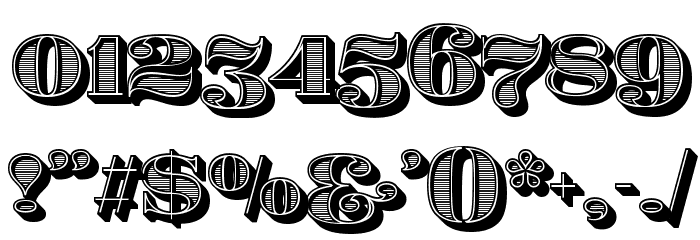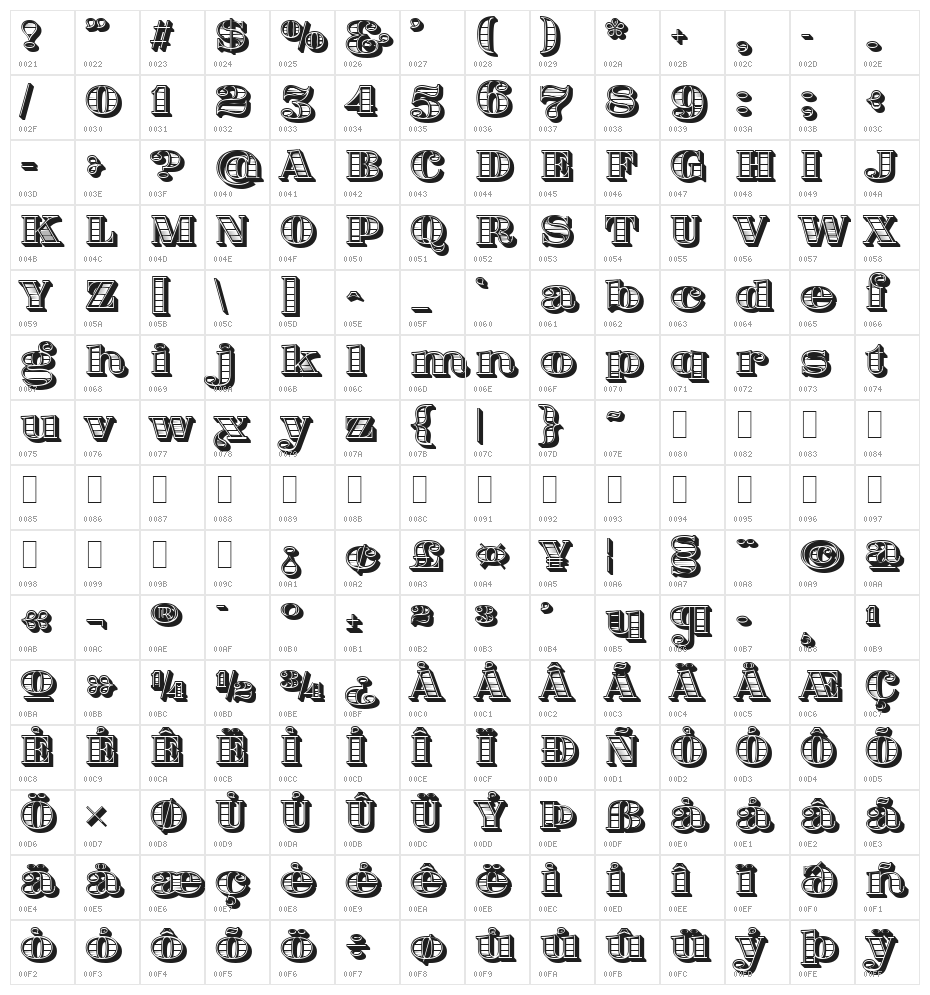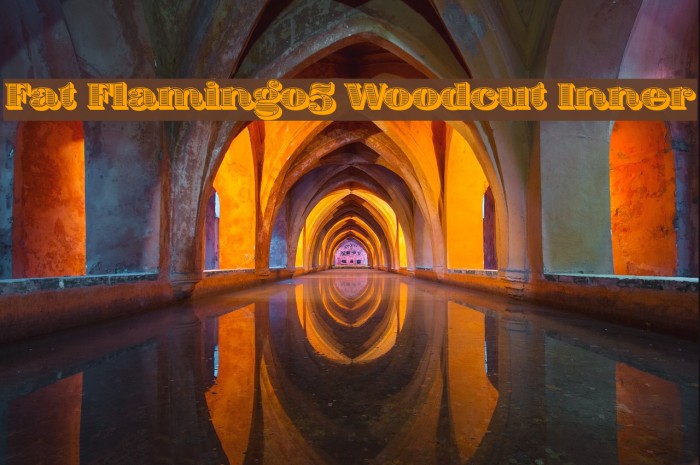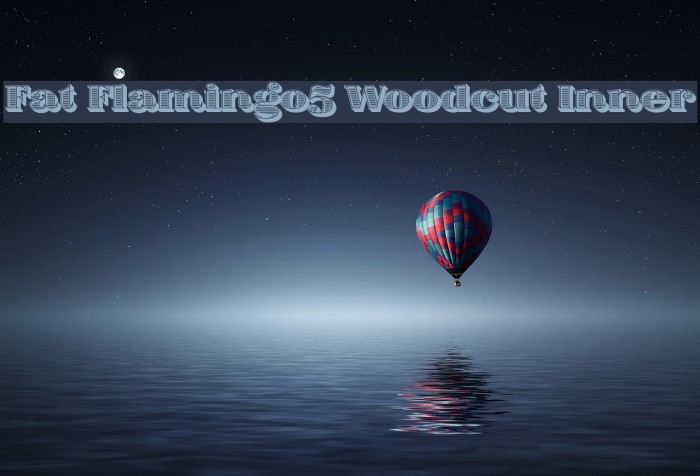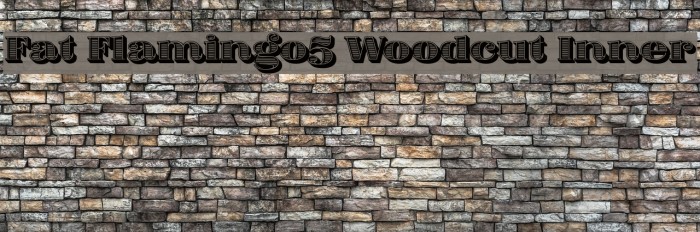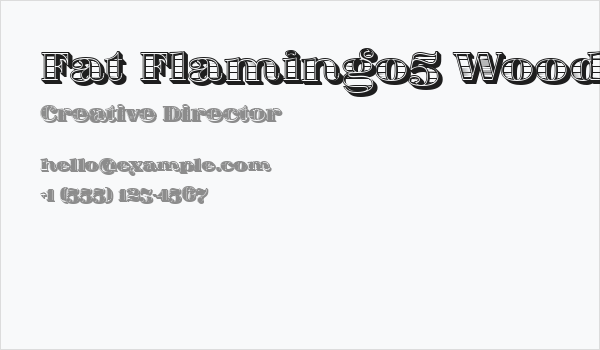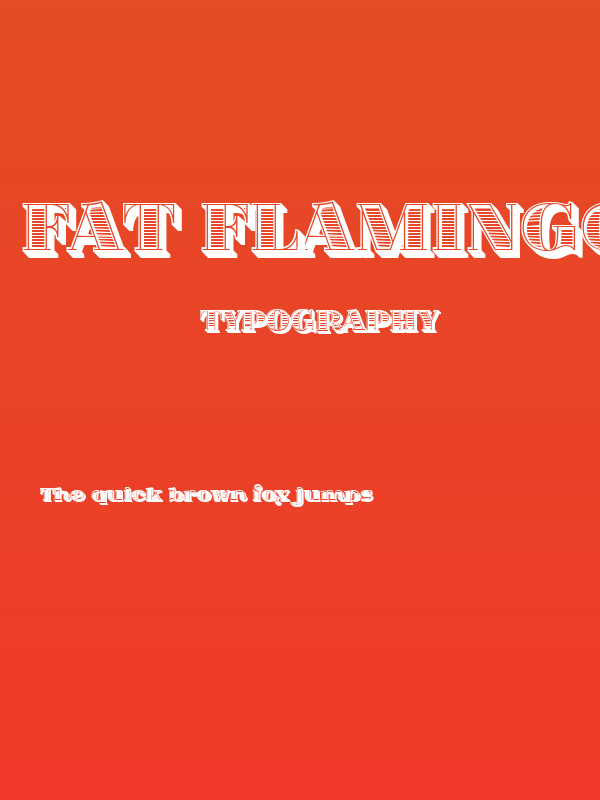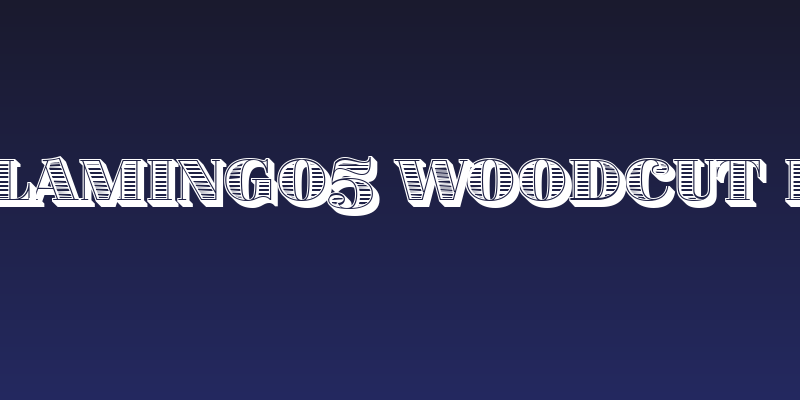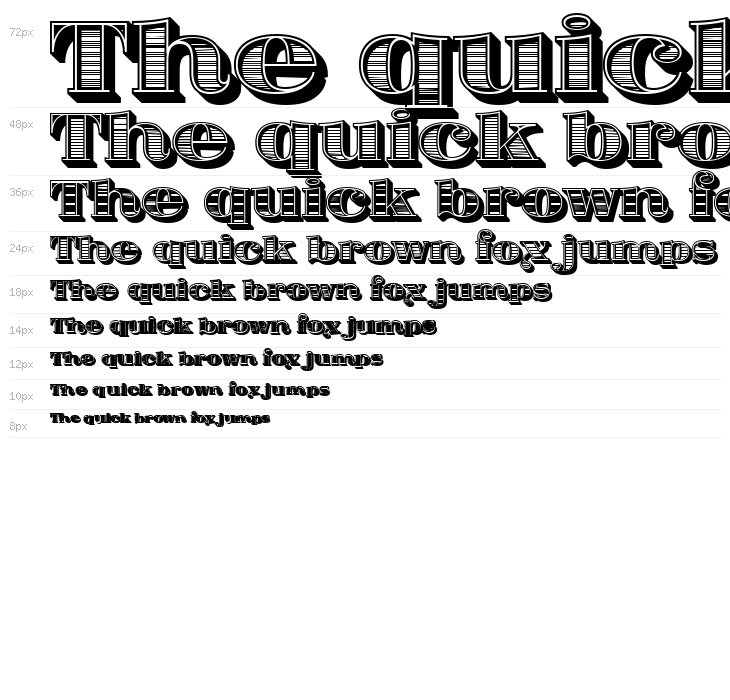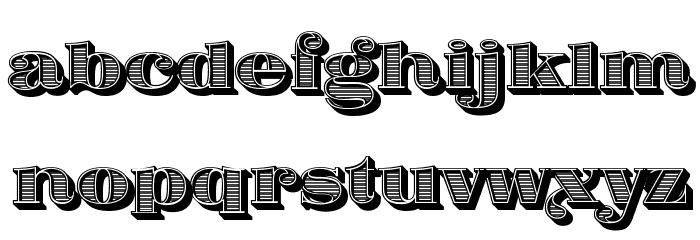
Fat Flamingo5 Woodcut Inner Font
Fat Flamingo5 Woodcut Inner Description
This font features a bold and striking design with a woodcut-inspired aesthetic. The characters are heavily stylized with thick, shadowed outlines that create a three-dimensional effect. The inner lines of each letter are intricately detailed, adding texture and depth. This decorative style is reminiscent of vintage poster fonts, making it highly suitable for attention-grabbing headlines and artistic projects. The uppercase and lowercase letters maintain a consistent style, with numerals and special characters following the same intricate design. The overall appearance is both bold and playful, making it ideal for creative and dynamic uses.
| Proposed Projects | Ideal for vintage posters, artistic headlines, branding, and creative design projects. |